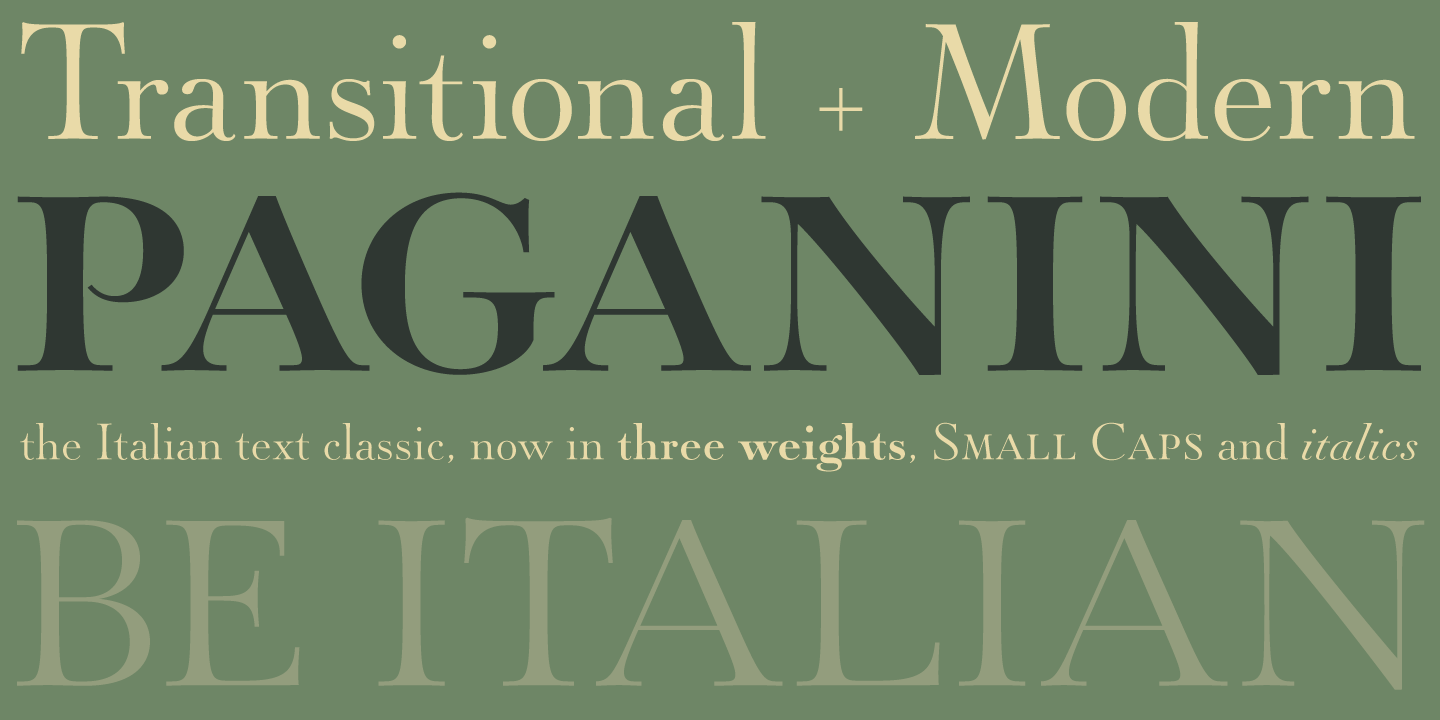
Please note, you must purchase this font for commercial use. You can download Paganini Font Free Download for testing purposes and explore its elegant, classical design. Paganini Font is perfect for sophisticated branding, editorial projects, invitations, and any design that requires a refined, traditional touch.
With its clean, well-proportioned letterforms and timeless serif design, Paganini Font brings a sense of sophistication and heritage to your projects. It’s ideal for high-end marketing materials, editorial layouts, and formal branding, offering readability while maintaining an elegant, classic aesthetic.
Paganini Font Free Download supports multilingual characters, making it versatile for global projects. Its legible design ensures clarity across both print and digital formats, making it suitable for various creative applications.